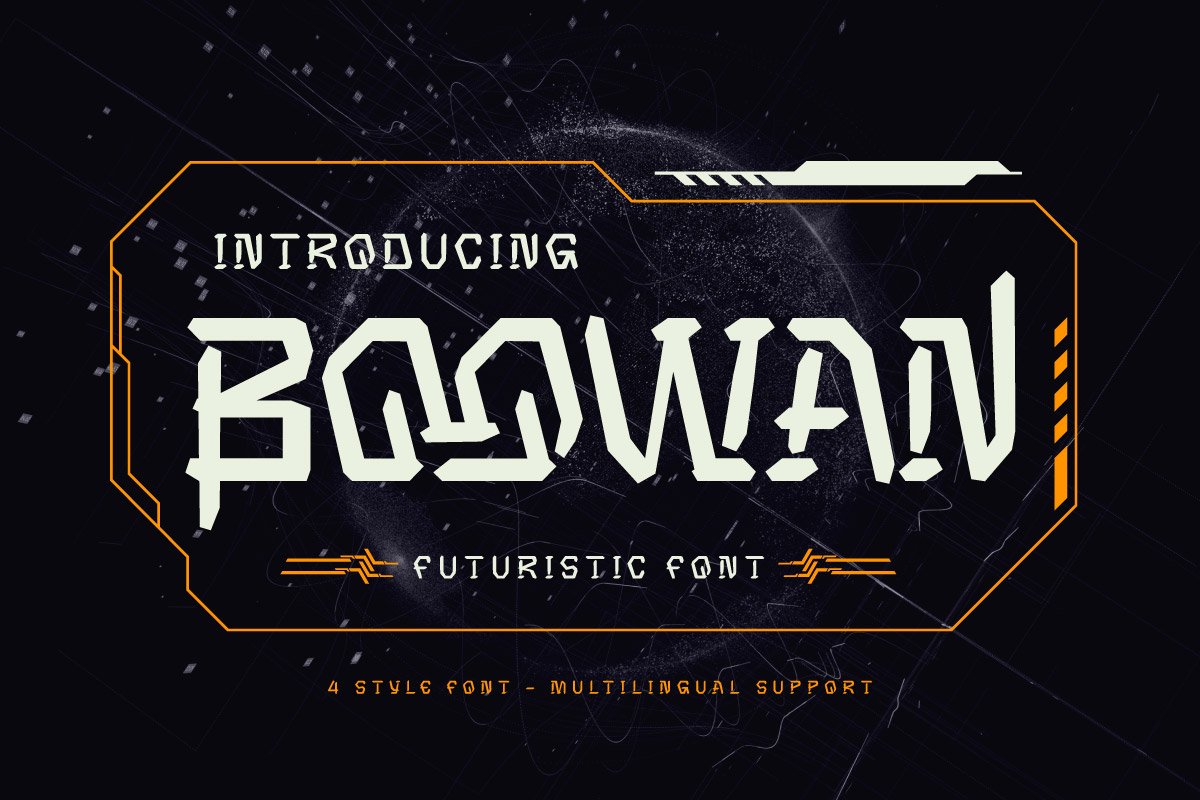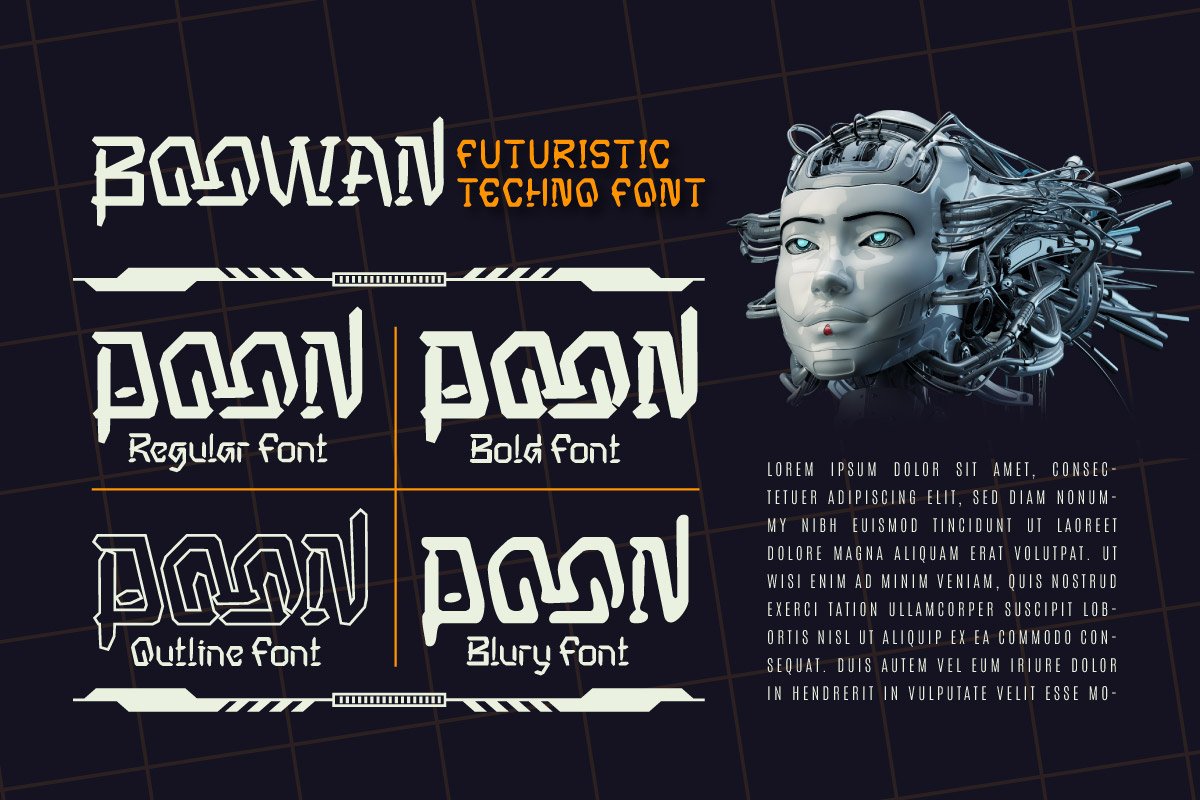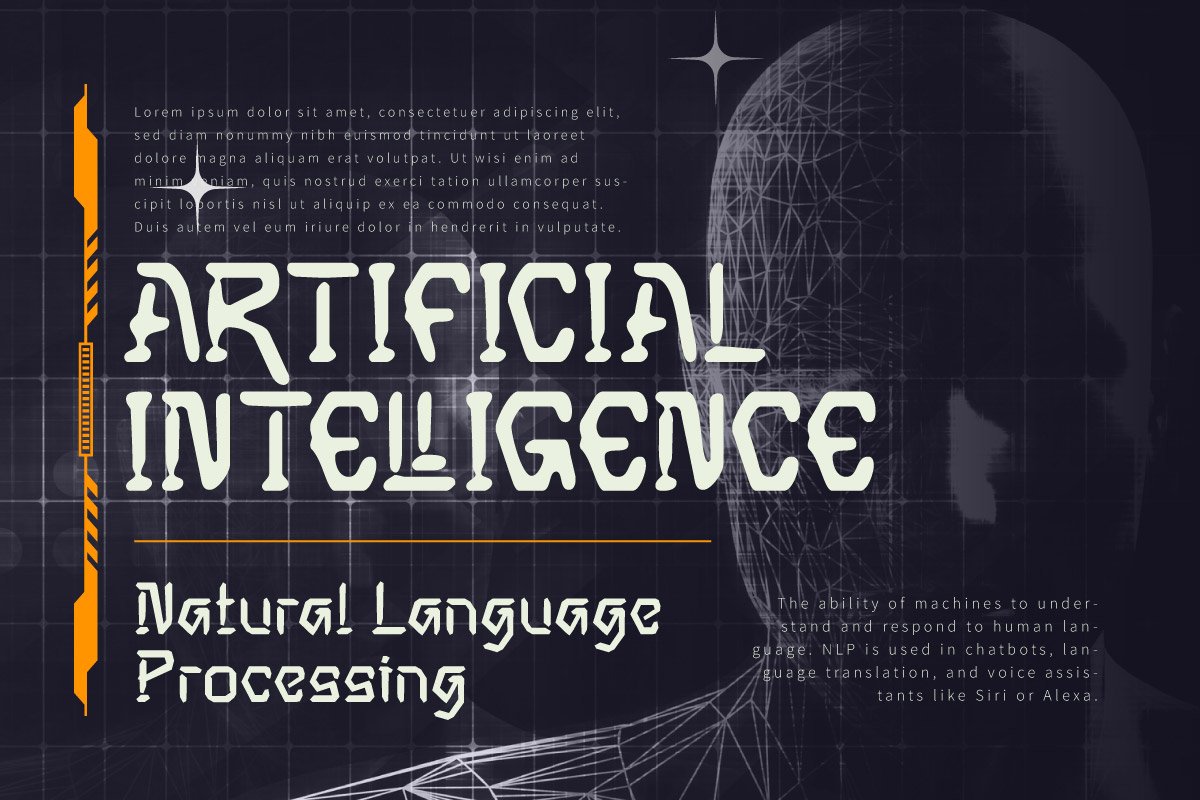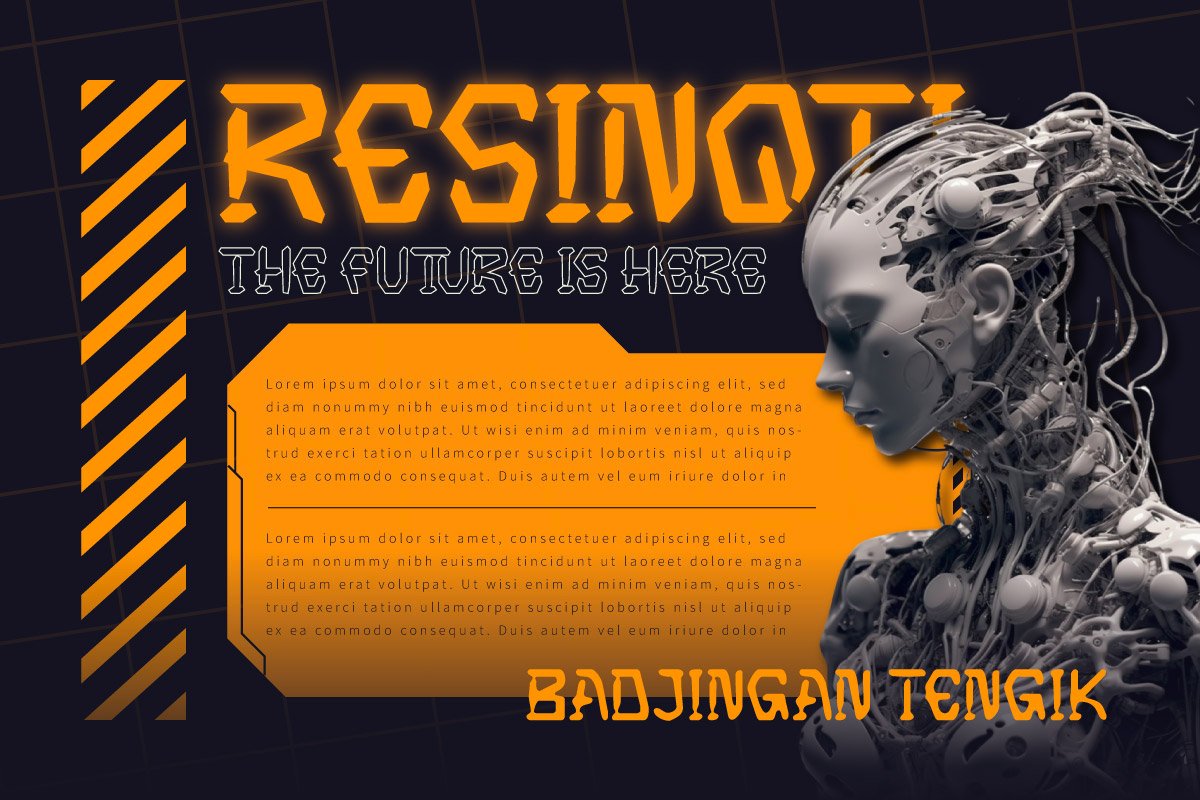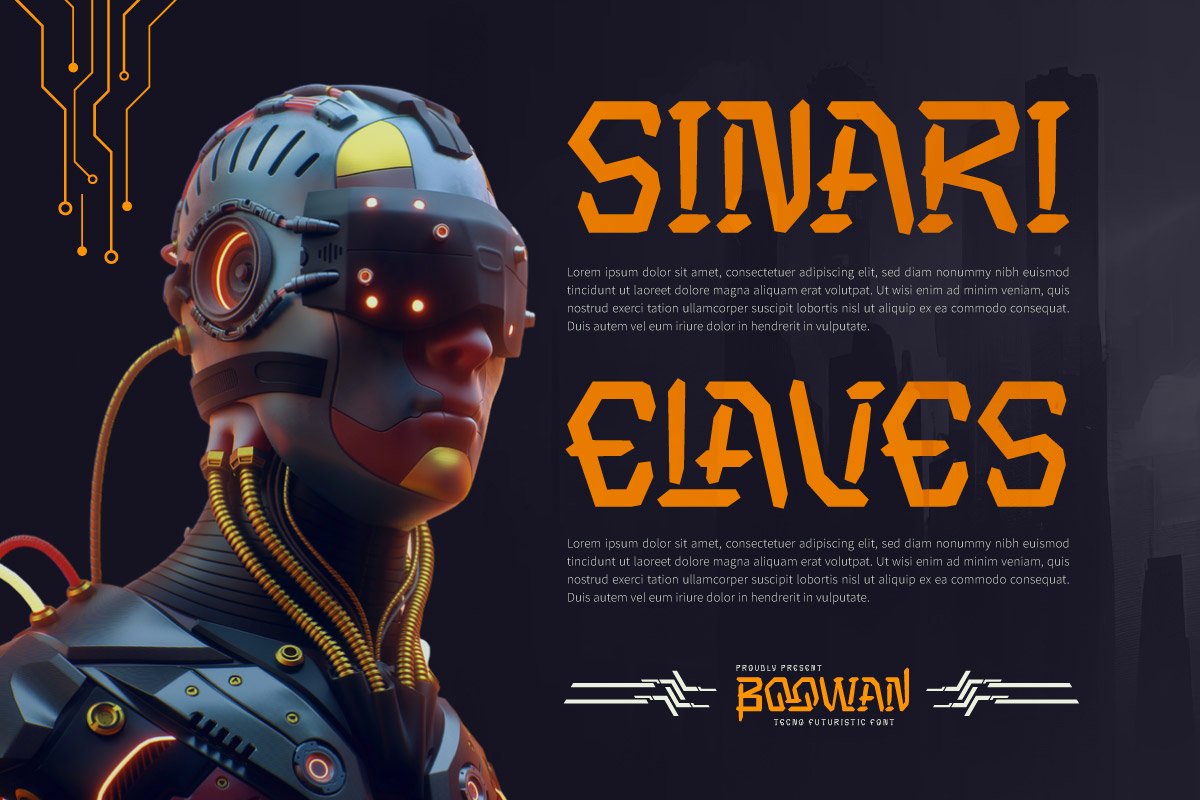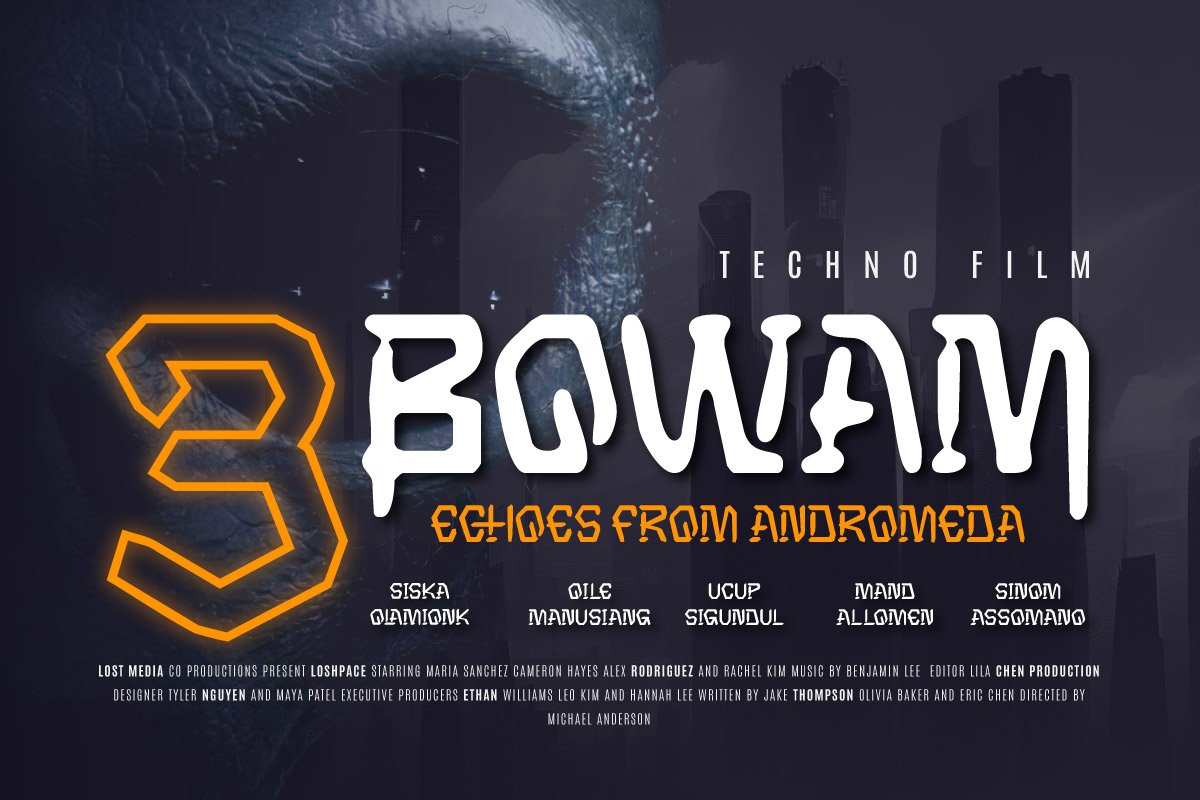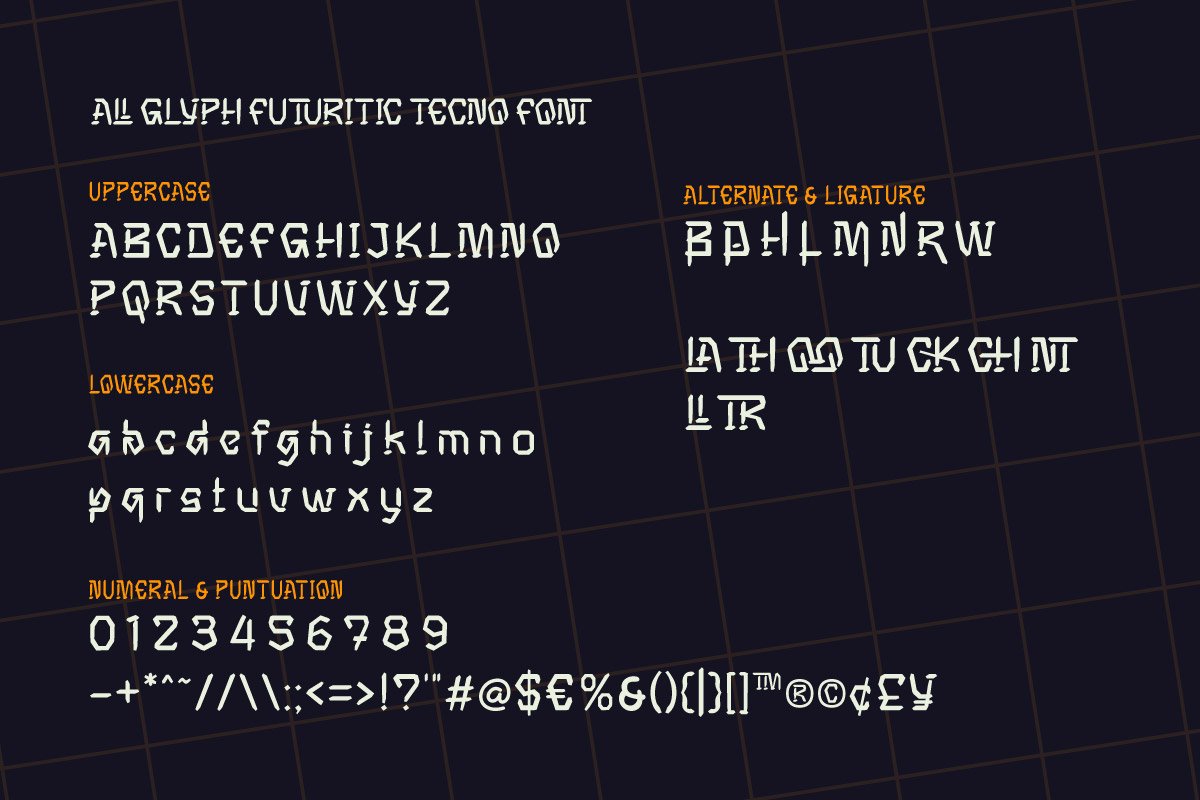
Boowan – Futuristic Display Font
Outline
Bold
Blury
Boowan is a sleek futuristic display font designed to capture the imagination and bring a modern edge to your projects. With its clean lines, geometric structure, and cutting-edge design, Boowan exudes sophistication and technological innovation. Perfect for branding, digital interfaces, sci-fi themes, posters, and sleek editorial layouts, this font is your go-to for projects that demand a forward-looking aesthetic.
Every character in Boowan is meticulously crafted to reflect a high-tech yet minimalistic vibe. Its sharp angles and fluid curves strike a perfect balance between readability and artistic appeal. This font is not just a tool; it’s an invitation to step into a world of tomorrow where creativity knows no bounds.
Boowan is ideal for creators who want to communicate vision, innovation, and futurism. Whether you’re designing for tech companies, gaming platforms, or movie titles, this typeface ensures your message is heard loud and clear with modern elegance. Push your projects beyond limits with Boowan!